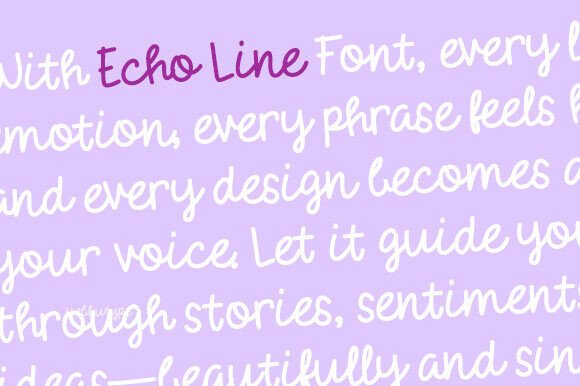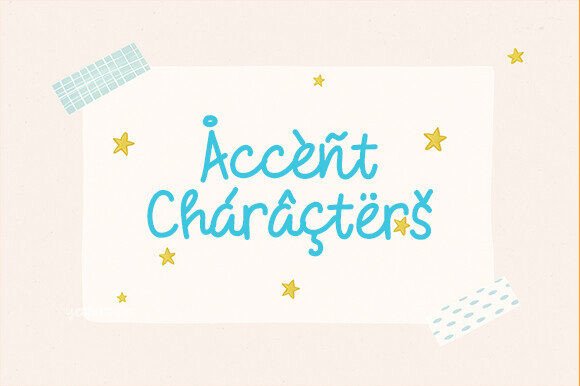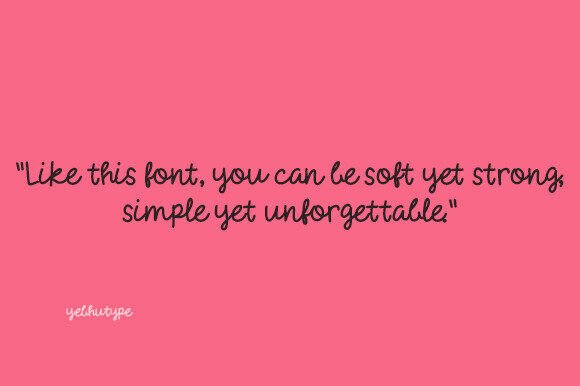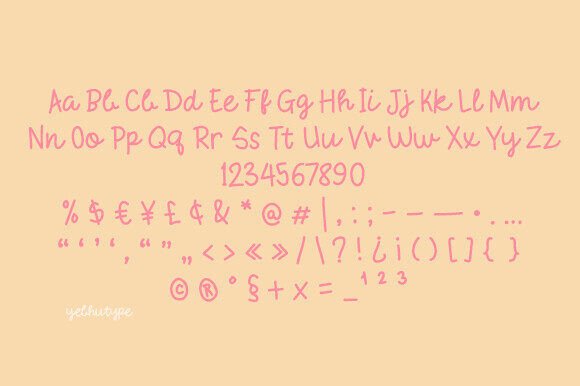
Introduction to Echo Line Font Font
Fonts play a crucial role in design, and the Echo Line Font font is a typeface that brings both character and versatility to any project. Whether you’re working on a branding project, a website, or a print design, the Echo Line Font font offers a unique style that can elevate your work.
Echo Line Font: Where Whimsy Meets Grace in Every Stroke Introducing Echo Line Font, a charming handwritten typeface that captures the beauty of natural writing with a touch of elegance and spontaneity.
Carefully crafted to convey warmth, ease, and a hint of sophistication, Echo Line is more than just a fontβitβs a tribute to the quiet poetry found in everyday handwriting With its smooth flow, subtle quirks, and dual lowercase styles, Echo Line invites you to create with authenticity and flair.
Key Features of Echo Line Font Font
Why Choose Echo Line Font Font?
The Echo Line Font font is more than just a typeface β it’s a design tool that helps you communicate your message with style and clarity. Its unique character set and versatile design make it suitable for a wide range of applications, from elegant invitations to bold headlines.
With its carefully crafted letterforms and balanced proportions, the Echo Line Font font ensures readability and visual appeal across all mediums.
What makes Echo Line Font font special?
The Echo Line Font font stands out with its unique design, exceptional readability, and versatility across various design applications.